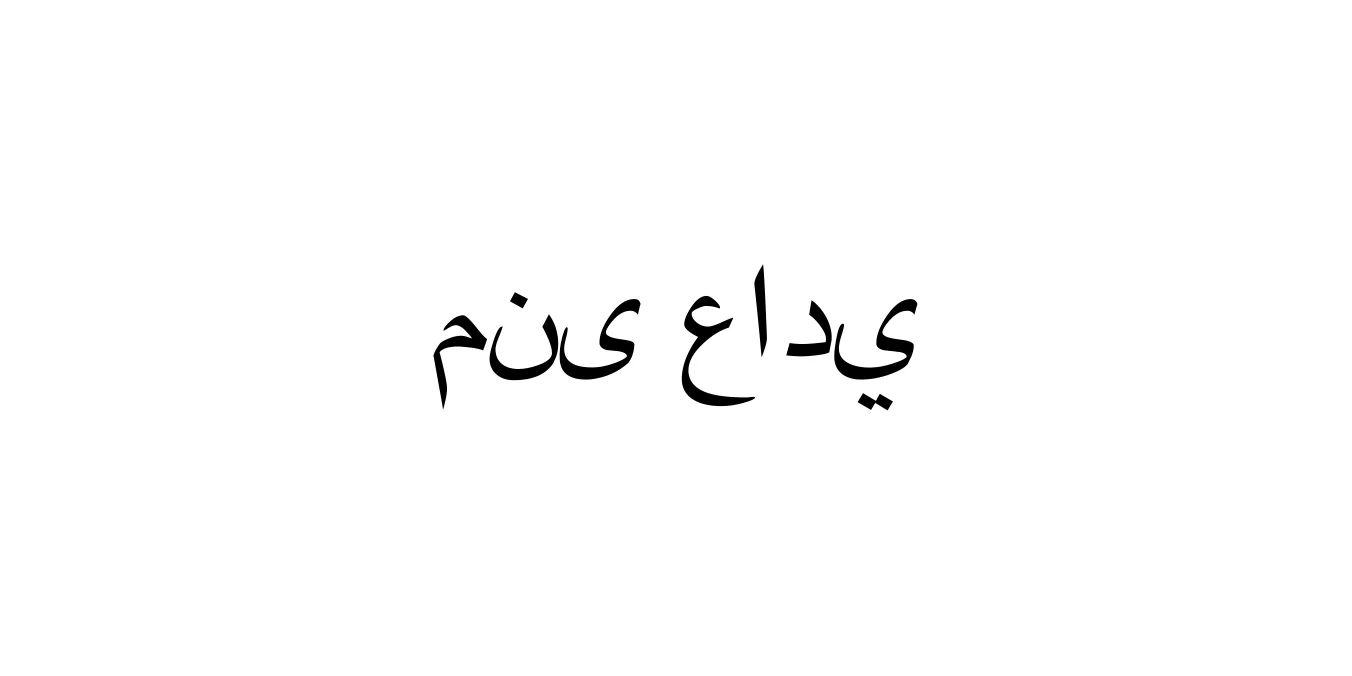
منى عادي
Designed by Paul Tracy
| Category | Arabic / Naskh |
| Designer | Paul Tracy |
Muna Regular is a sophisticated Arabic typeface designed by Paul Tracy and released by Linotype. It represents a modern interpretation of the traditional Naskh script, blending classical calligraphic proportions with the clean lines required for contemporary graphic design. The font is celebrated for its graceful curves and precise construction, which provide a harmonious reading experience across various media.
This typeface was engineered to perform exceptionally well in both high-resolution printing and digital display environments. By maintaining a clear distinction between characters and optimizing the horizontal flow of the script, Muna has become a preferred choice for high-end editorial work, corporate communications, and bilingual branding projects that require a touch of professional elegance and cultural authenticity.
منى عادي Best Uses
Ideal for body text in premium magazines, journals, and books.
Perfect for professional branding, official reports, and business correspondence.
Highly legible for long-form reading on websites and mobile applications.
Pairs beautifully with clean serif or sans-serif Latin typefaces for multi-language layouts.